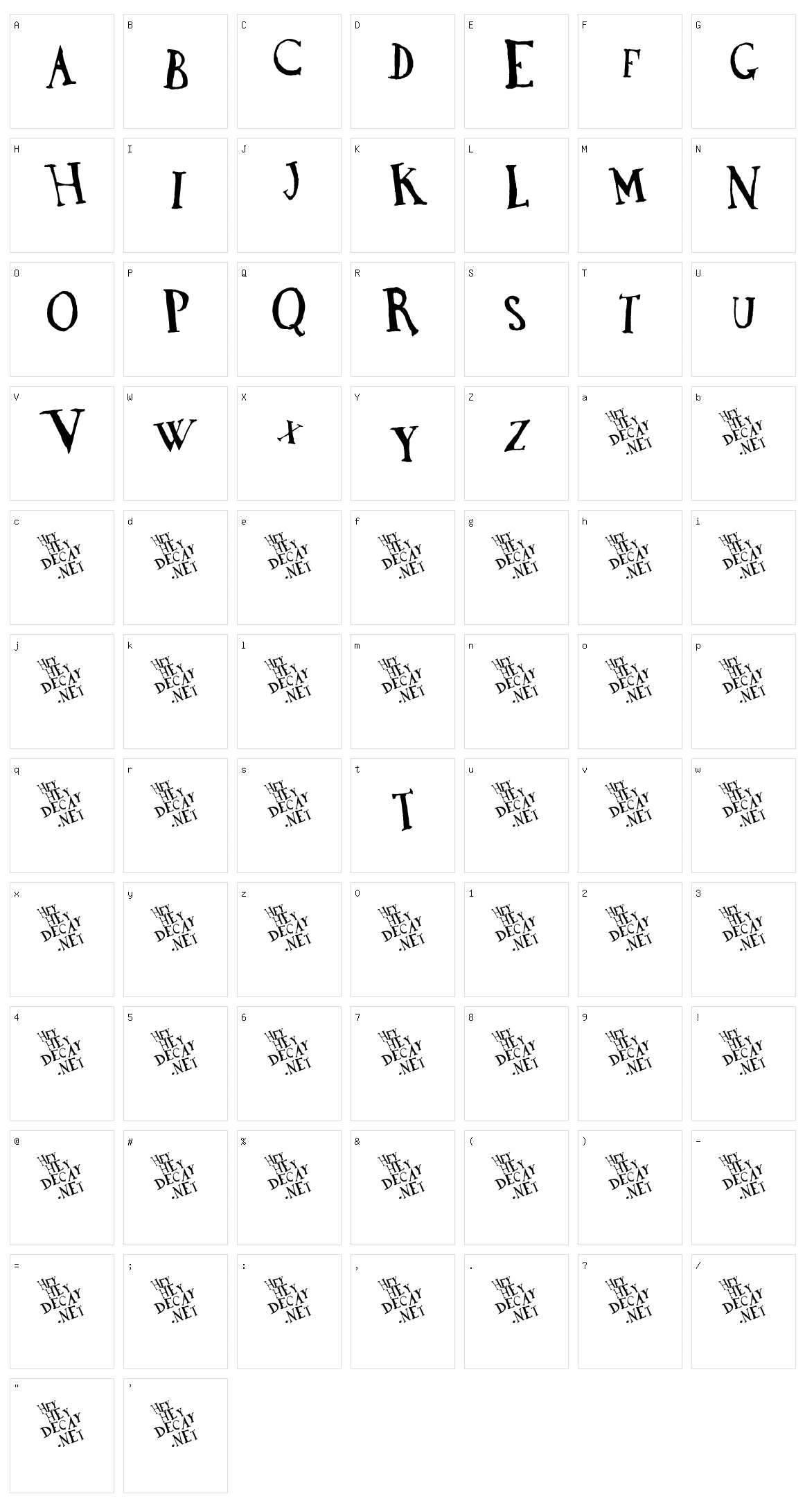
This DaDa inspired font was made some years ago, and I have made som minor changes to it now.
All letters are caps, but they are different, so that you will get a more random hand written feeling with a little use of the caps lock.
With two similar letters next to eachother, just do like this: AabB and so on.